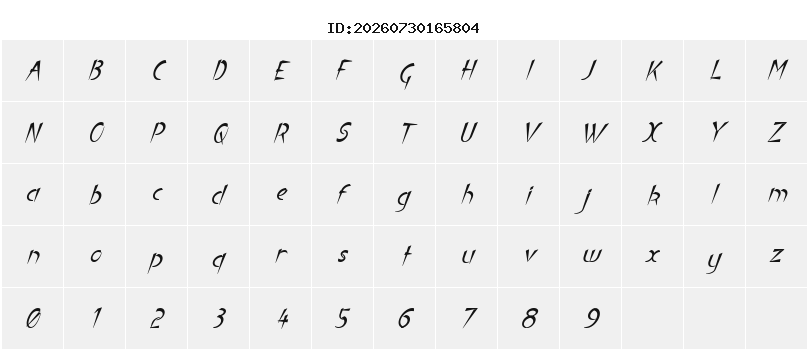
Luteous Aublikus Preview
• Font Name: Luteous Aublikus
• Designer: Graham Meade & Rich Parks
About Luteous Aublikus.ttf
Luteous Aublikus.ttf is a modern, elegant sans-serif font designed for ultimate readability and visual harmony. Perfect for branding, headlines, web design, and print materials.